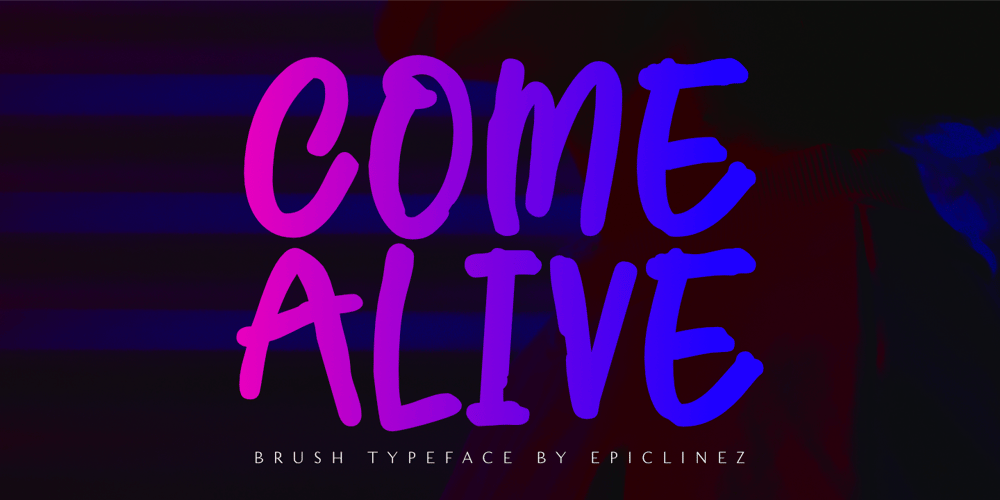
Come Alive Font Family was designed by Aldy Sidik and published by Epiclinez. Come Alive contains 1 styles and family package options. Introducing Come Alive, a hand-drawn, organic feel brush typeface. With its carefree and playful vibe, this typeface is suitable for logos, apparel, headlines, and more. Add a warm touch to your design projects with this fun and energetic brush typeface.